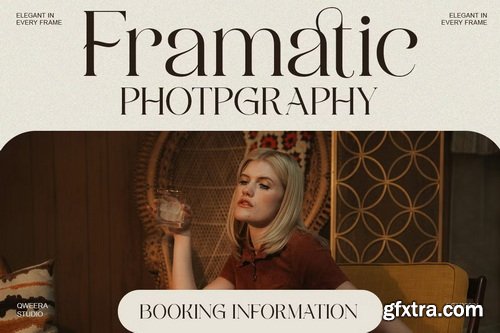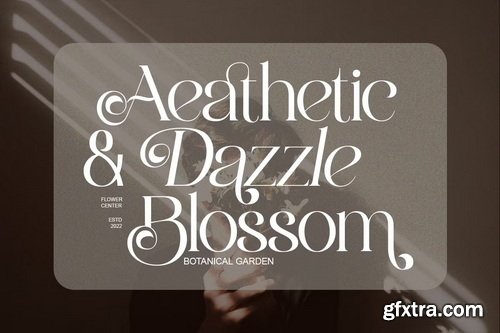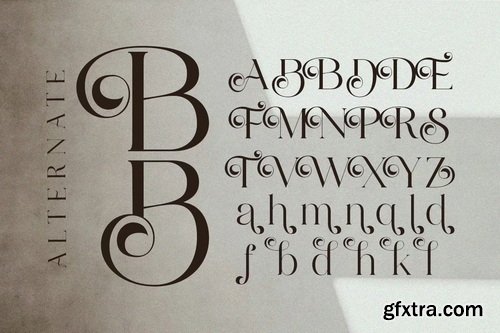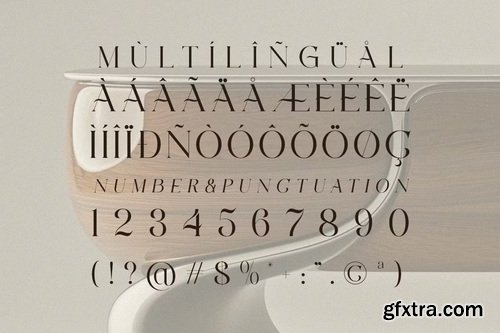
CreativeMarket - Bolqito Elegant Luxury Serif Font
- Introducing Bolqito – a refined luxury serif typeface with timeless beauty and elite sophistication. Crafted with sleek curves, modern contrast, and artistic ligatures, Bolgito radiates premium aesthetics that speak class, elegance, and high fashion appeal. Specially designed for upscale branding and editorial design, Bolqito is the go-to font for logos, packaging, fashion campaigns, and refined typographic statements.